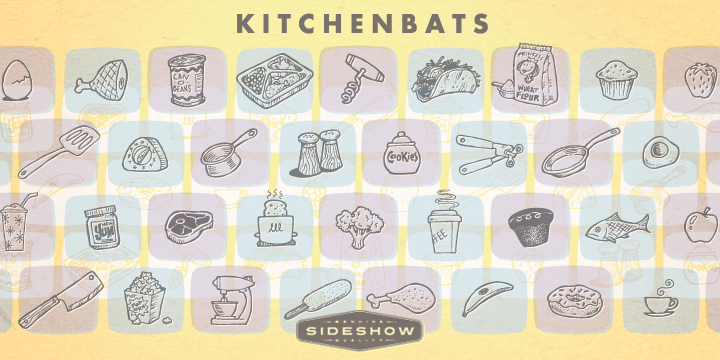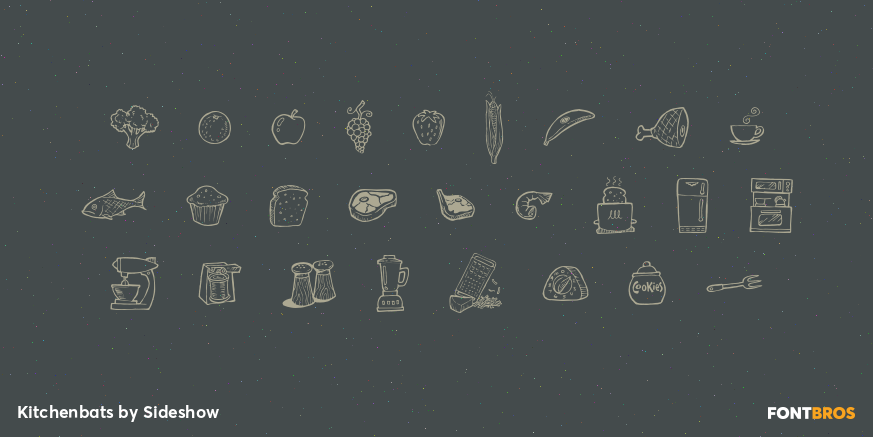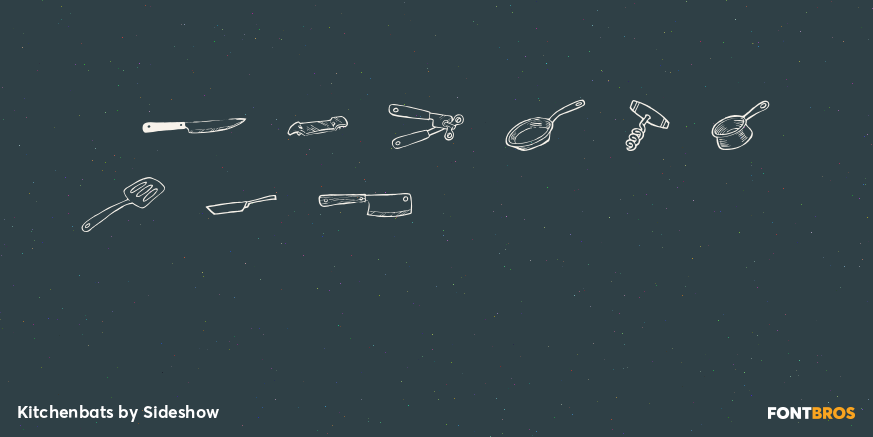
Kitchenbats
Font Family by Sideshow
Hey good lookin', what's cookin'? Kitchenbats by Squid, that's what! The modern miracle of digital typography allows us to provide you with everything needed for a gourmet 5-course meal, a healthy snack, or a massive junk food binge. Make Kitchenbats part of your balanced diet and amaze your dinner guests with epicurean wizardry...at the touch of a button!